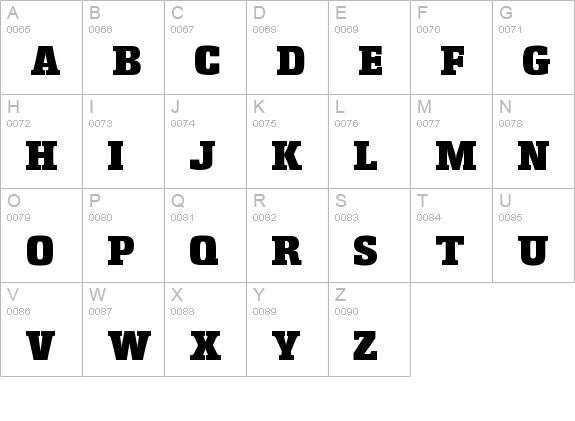
Entrez Regular Font Details
Entrez Regular is the standard, neutral variant in the Entrez typeface family \xE2\x80\x94 well suited to general body text, paragraphs, and standard typographic work.
Entrez Regular font is a modern and stylish typeface that exudes sophistication and professionalism. With its clean lines and balanced proportions, this font is versatile and suitable for a wide range of design projects. Whether you are creating a logo, website, or printed materials, Entrez Regular will add a touch of elegance to your work. The best part? Entrez Regular font is completely free to download! You can easily access this high-quality font at FontsMarket.com, where you can find a wide selection of free and premium fonts for all your design needs. Don't miss out on the opportunity to enhance your projects with the timeless appeal of Entrez Regular font. Download it today and elevate your designs to the next level!